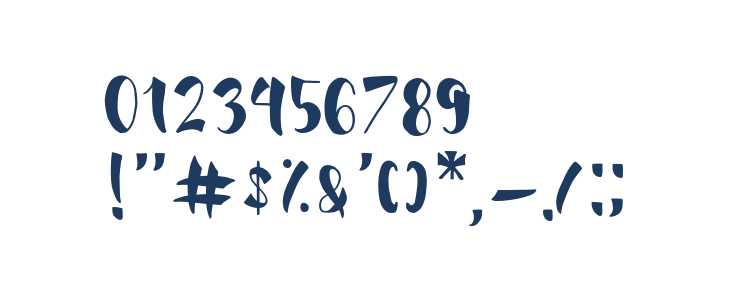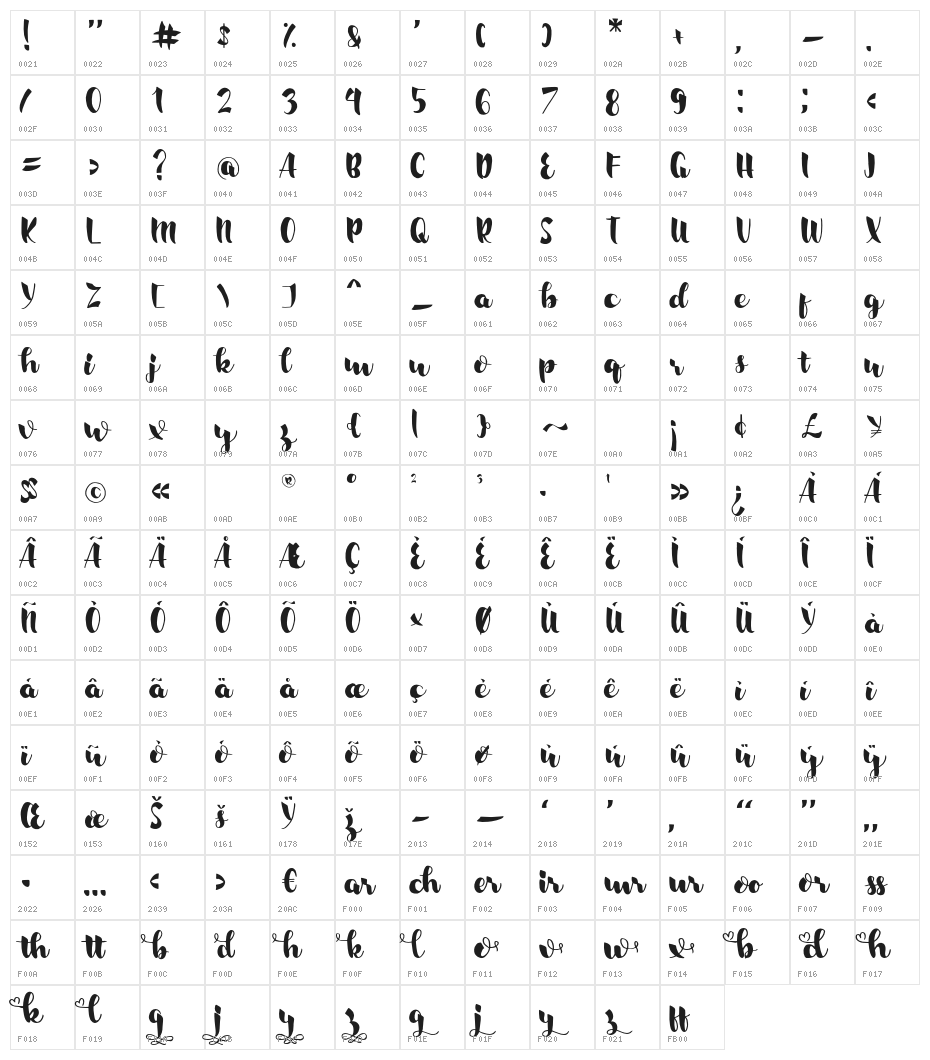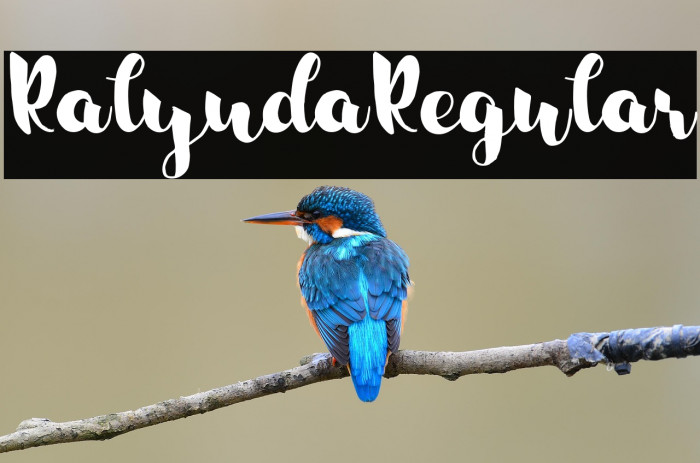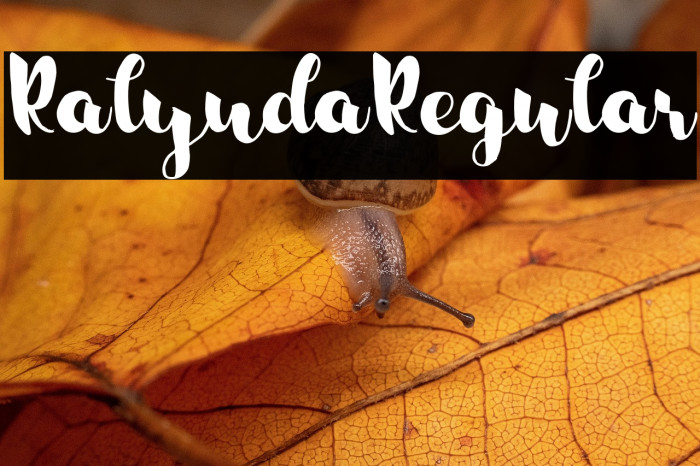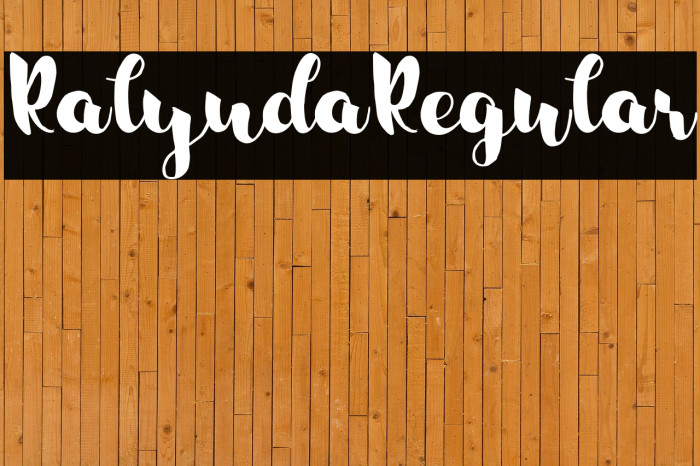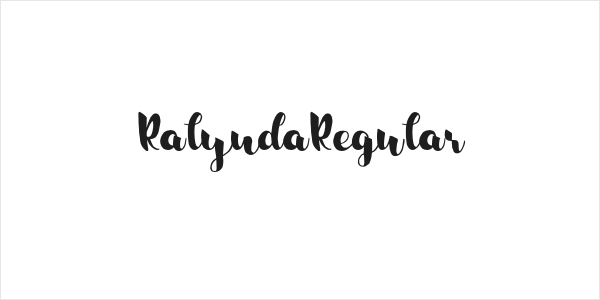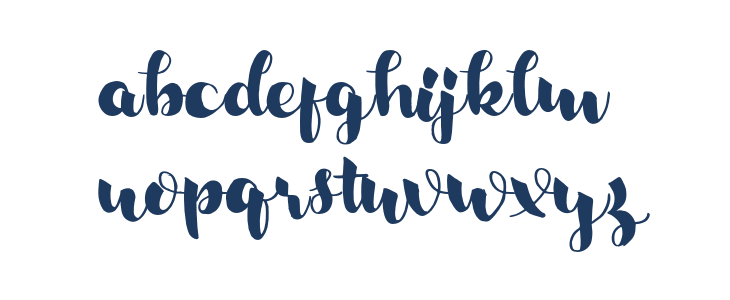
RalyndaRegular Font
RalyndaRegular Description
This font features a bold and expressive script style with a playful and artistic flair. The characters are crafted with a brush-like appearance, showcasing thick and thin strokes that create a dynamic and energetic feel. The uppercase letters are bold and prominent, while the lowercase letters maintain a fluid and connected style, enhancing the overall cohesiveness. Numbers and special characters follow the same expressive design, making them stand out. This font is ideal for projects that require a personal touch or a creative, informal vibe.
| Use Case | Logos, Headlines, Invitations |
| Proposed Projects | Ideal for branding, invitations, greeting cards, posters, and creative design projects. |